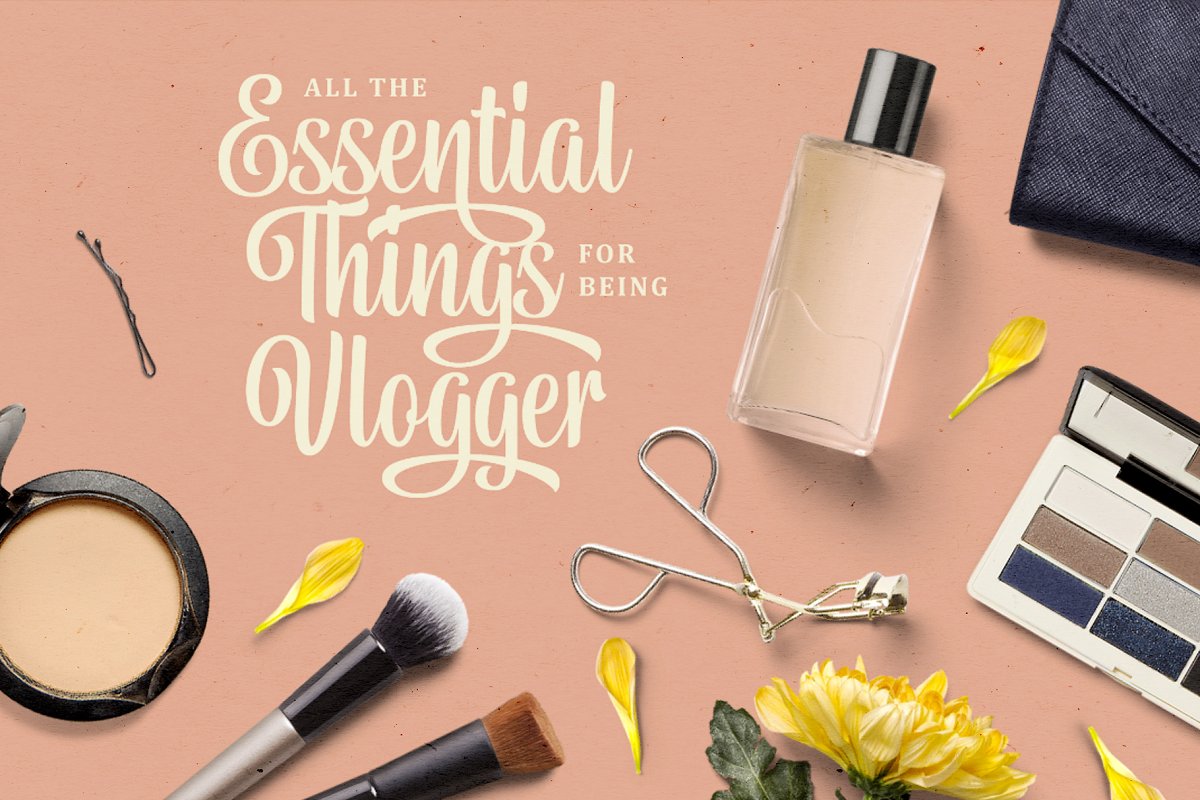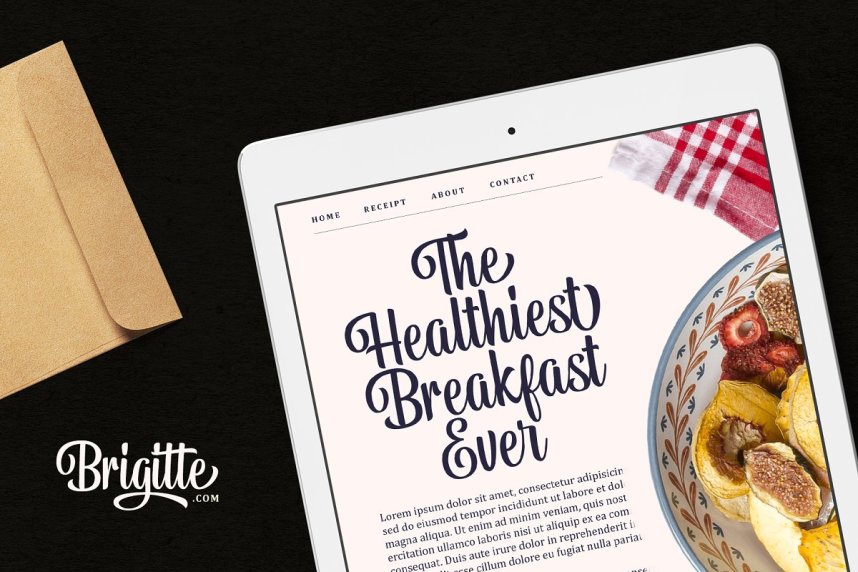
Belymon Script Font
Hello world..!! If you’re looking for a bouncy and girly script font, Belymon Font is for you! Belymon is a one-of-a-kind script with classic touch and very readable at glance. Really perfect for you who needs a typeface for especially logotype, apparel, invitation, branding, packaging, advertising etc.